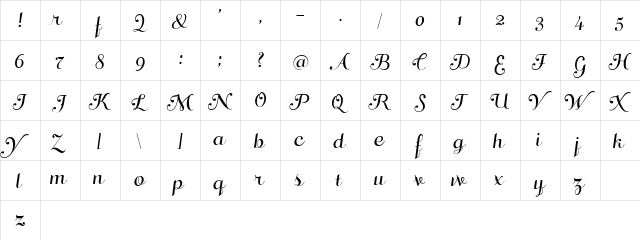
DiValzer Script
Design Context for DiValzer Typeface
DiValzer flows with the natural rhythm of handwritten lettering, making it ideal for designs that call for warmth and personal expression.
Font Pairing: Combine DiValzer with a simple geometric sans for maximum contrast — the tension between flowing curves and clean structure is a classic typographic pairing.
Pro Tip: Use DiValzer for short runs of text — names, titles, or taglines. Extended body copy in script faces tires the eye quickly.